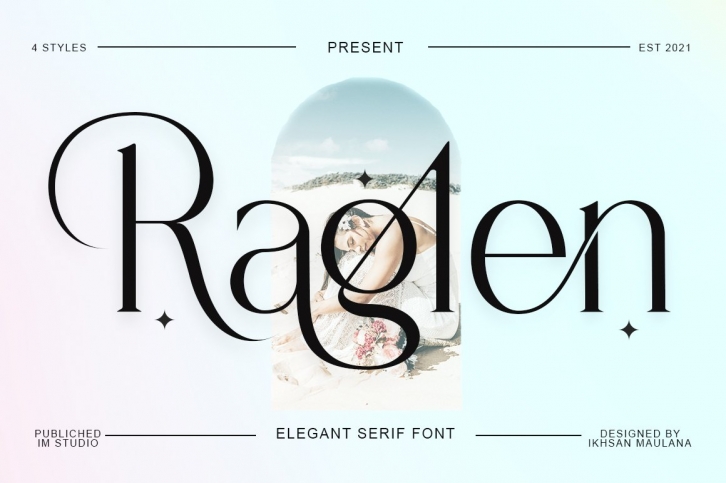
Raglen Serif is a great font that was designed by IM Studio. Imagine the amount of combinations you can create using this font! The archive is 4.93 MB and it was released on September 28, 2021. Raglen Serif looks beautiful on wedding invitations, greeting cards, logos, posters, labels, t-shirt designs, logos, business cards and is perfect for use in ink or watercolor works, fashion, magazines, packaging and food menus, children's books and more!